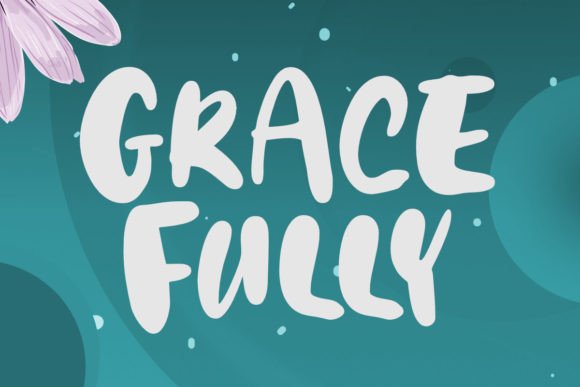
Within the realm of typography, the Gracefully font family stands tall as a beacon of elegance and charm, captivating the hearts of users with its carefully crafted glyphs and exquisite forms. Designed by the visionary Olivetype, the creator of many typographic masterpieces, Gracefully exudes a distinct character that sets it apart from the ordinary. Its bold strokes and dynamic curves evoke a sense of playfulness, rendering it perfect for eye-catching headlines, logos, and posters.
Unleash the boundless creativity that lies at the core of Gracefully's design. Its clean and crisp structure ensures effortless readability, while its stylish ligatures and alternate characters add a touch of uniqueness to every composition. As a modern handwritten typeface, Gracefully possesses a natural flow that mimics the spontaneity of hand-lettering, imbuing your designs with a personal touch.
With Gracefully, your creations will exude a charm that captivates audiences, leaving an indelible mark wherever it's used. Its versatility extends across a wide range of applications, making it suitable for both digital and print media. Whether you're designing wedding invitation suites, eye-catching social media posts, or captivating marketing materials, Gracefully promises to elevate your designs to new heights.
Embark on a creative journey with Gracefully and discover the infinite possibilities it holds. As an added bonus, its extensive language support ensures your designs reach a global audience, communicating your message with clarity and impact. Experience the magic of typography with Gracefully, the font that sparks imagination and leaves an indelible impression.